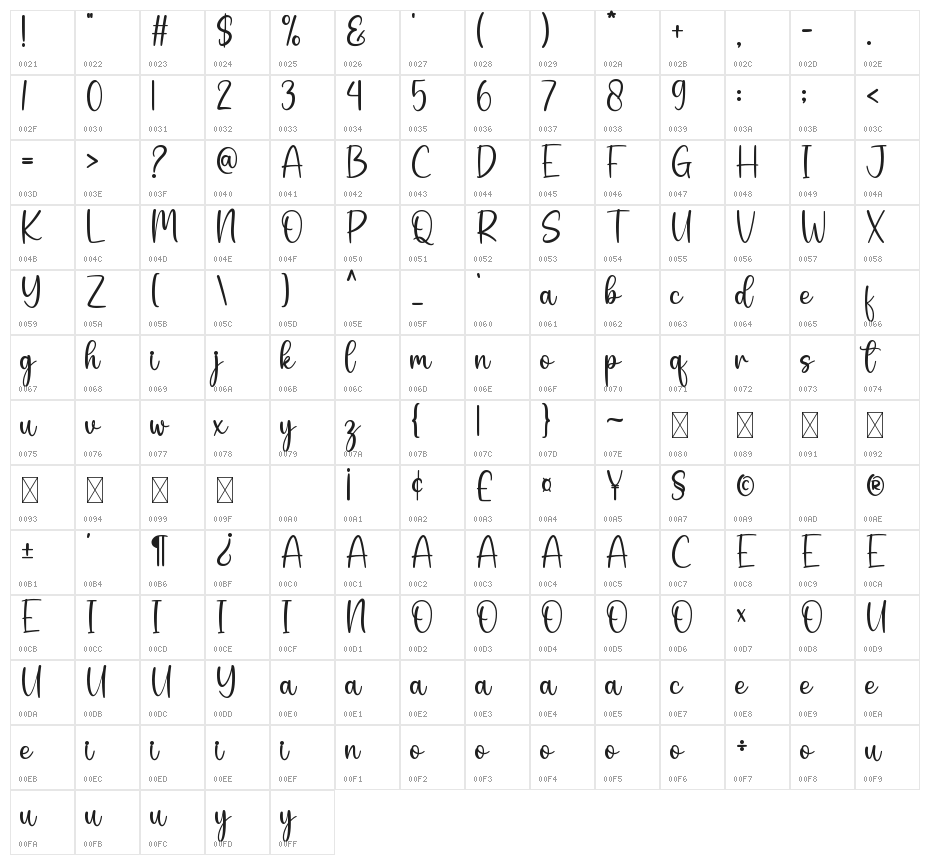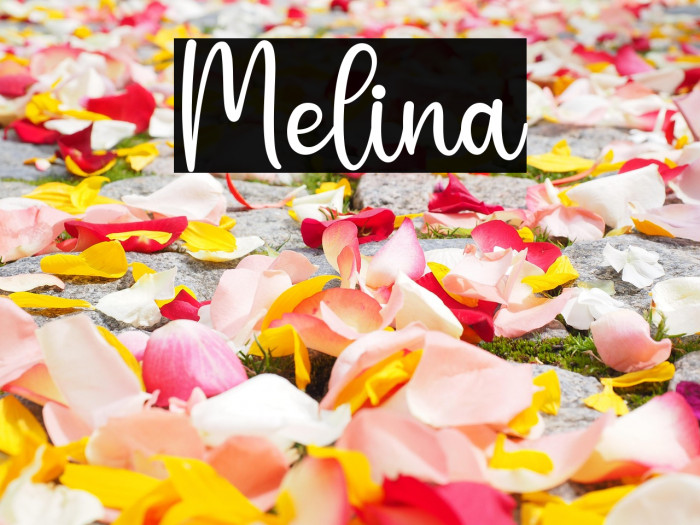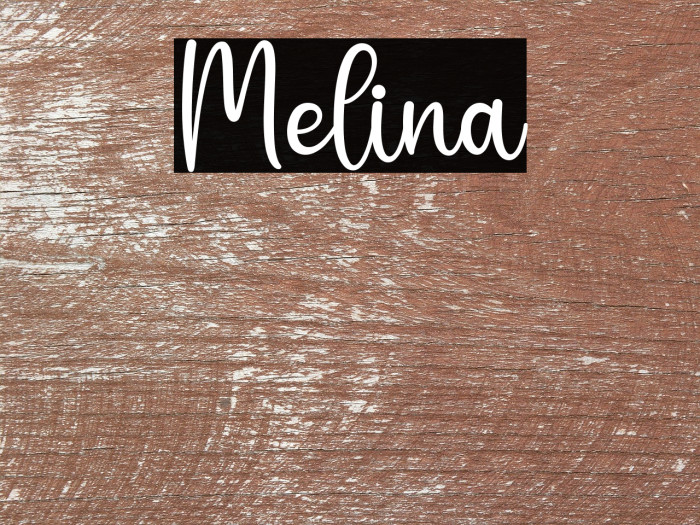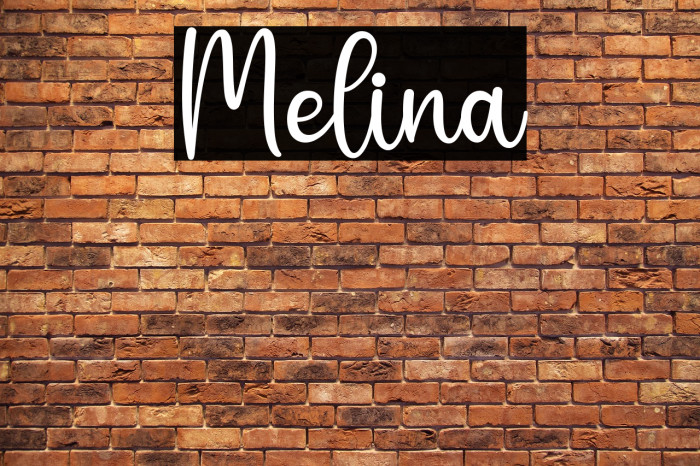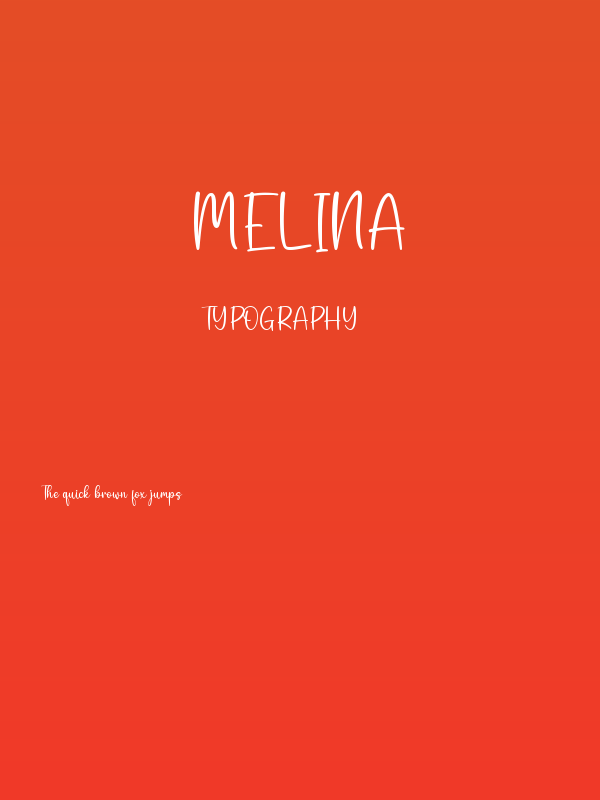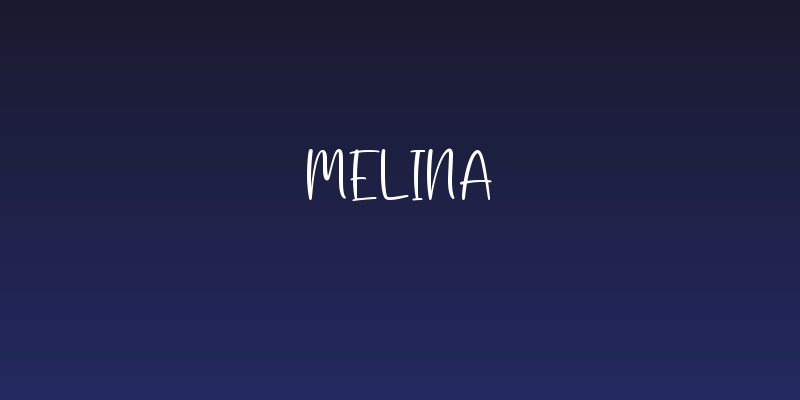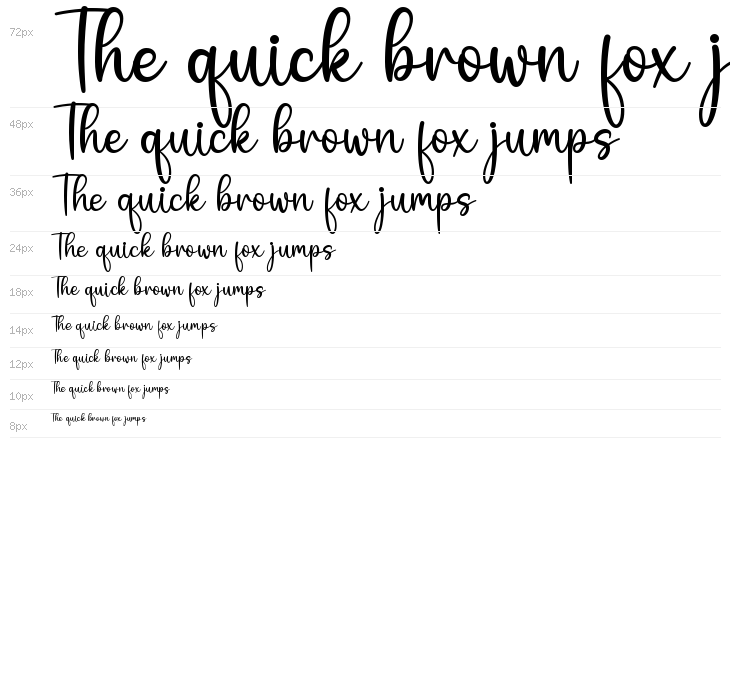
Melina Font
Melina Description
A playful and casual handwritten font with a mix of uppercase and lowercase styles, featuring smooth curves and a friendly appearance.
| Overall Style | Casual |
| Use Case | Logos, Invitations, Personal projects |
| Proposed Projects | Greeting cards, invitations, personal branding. |